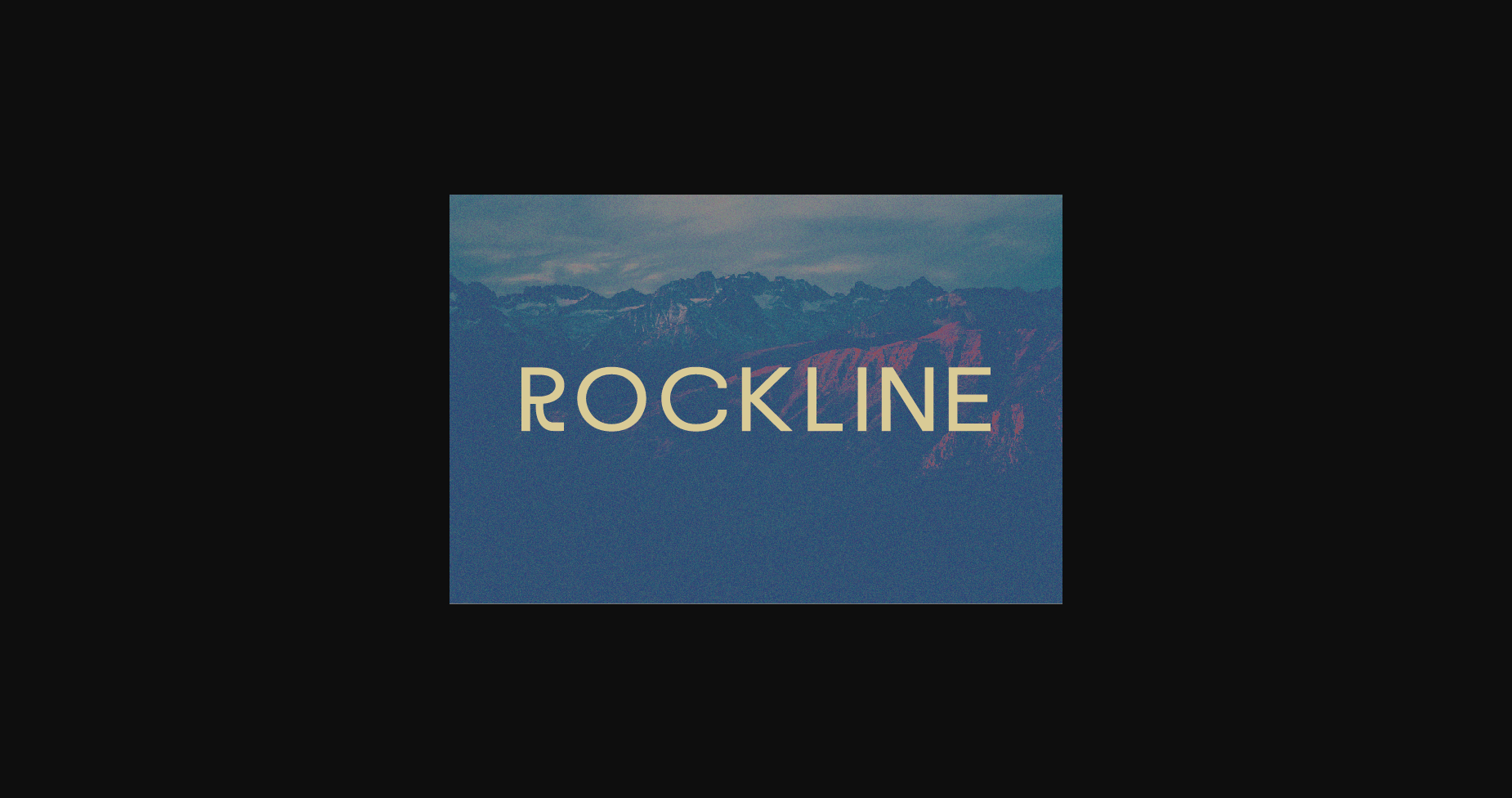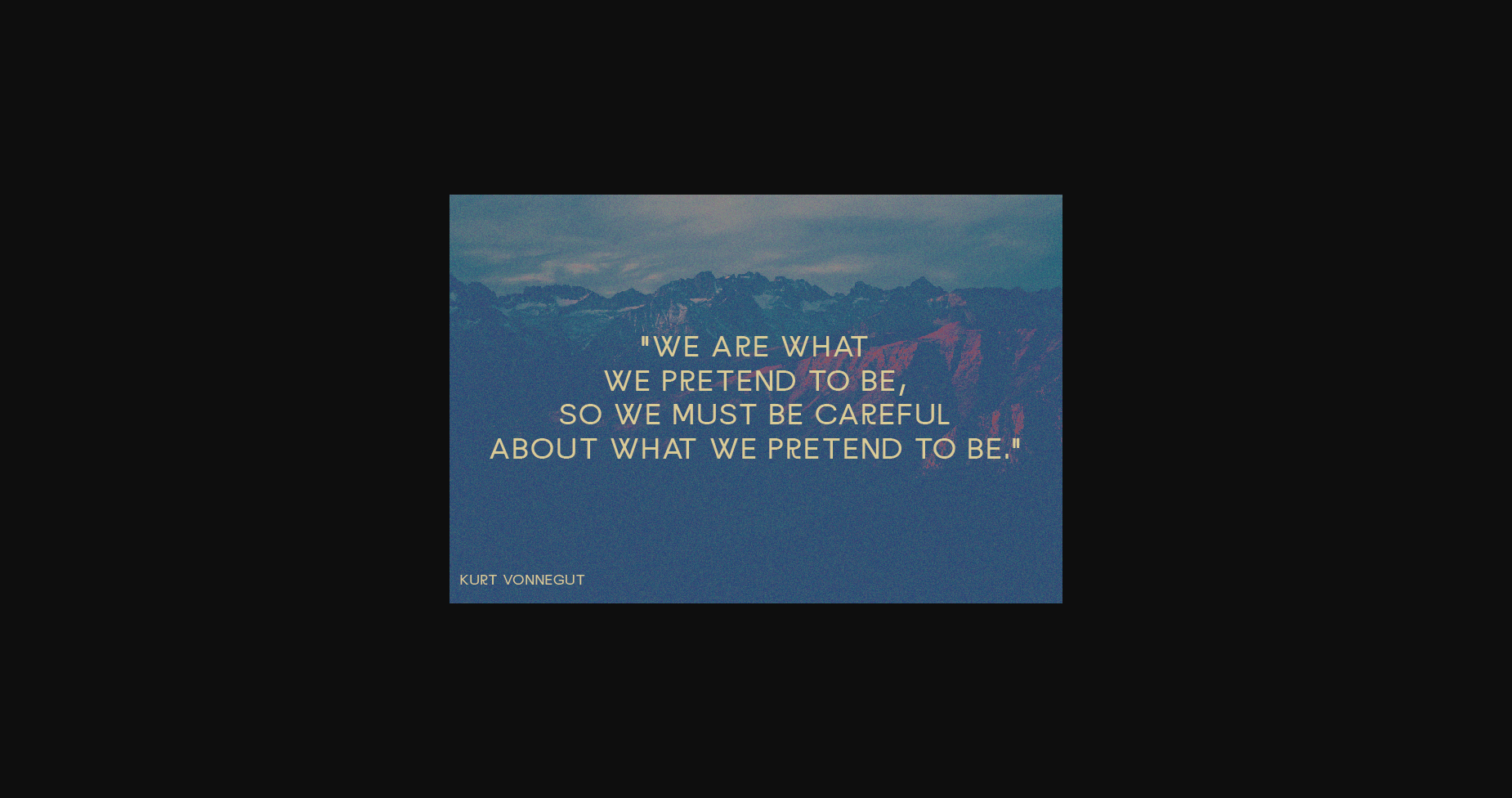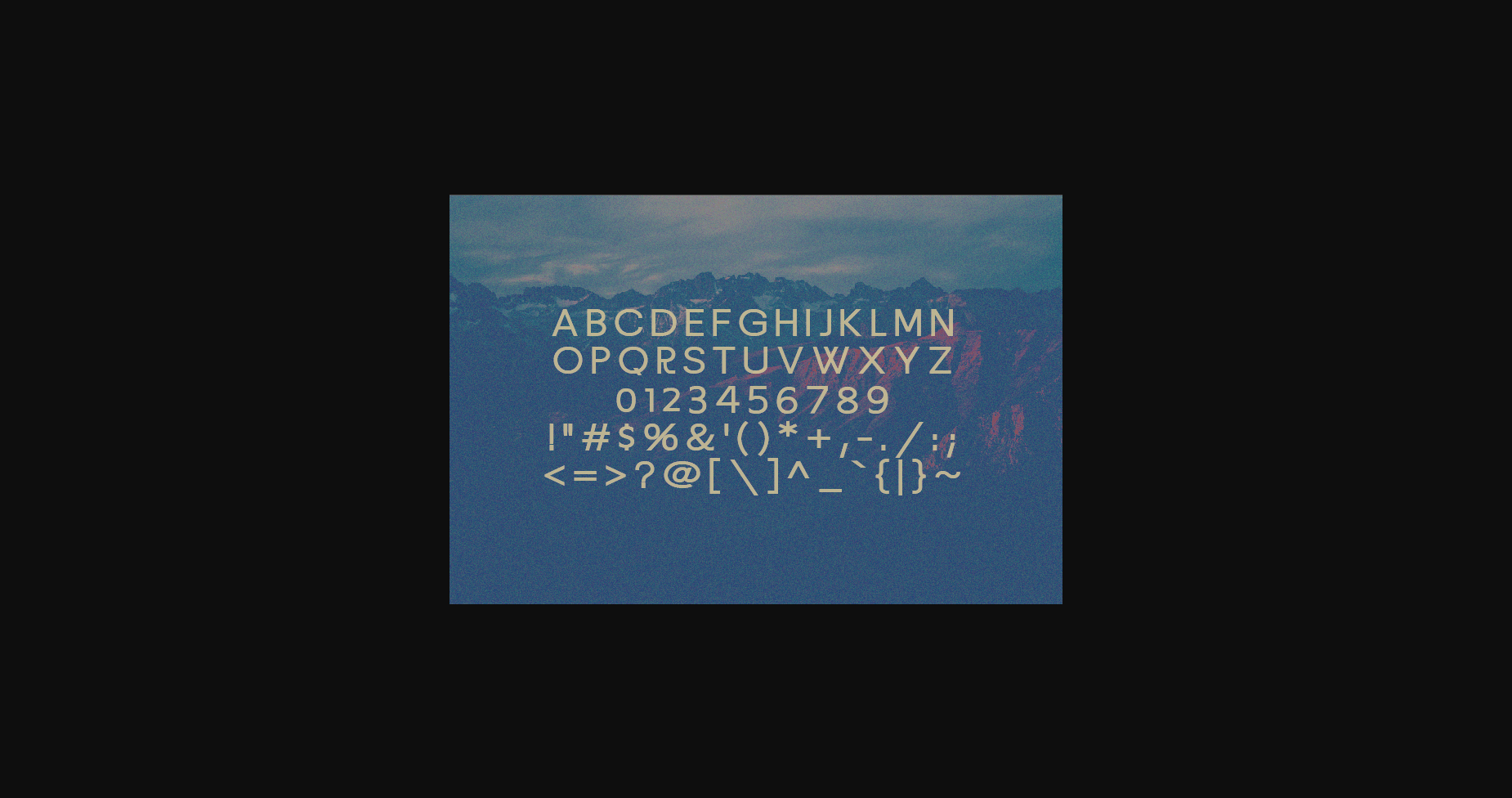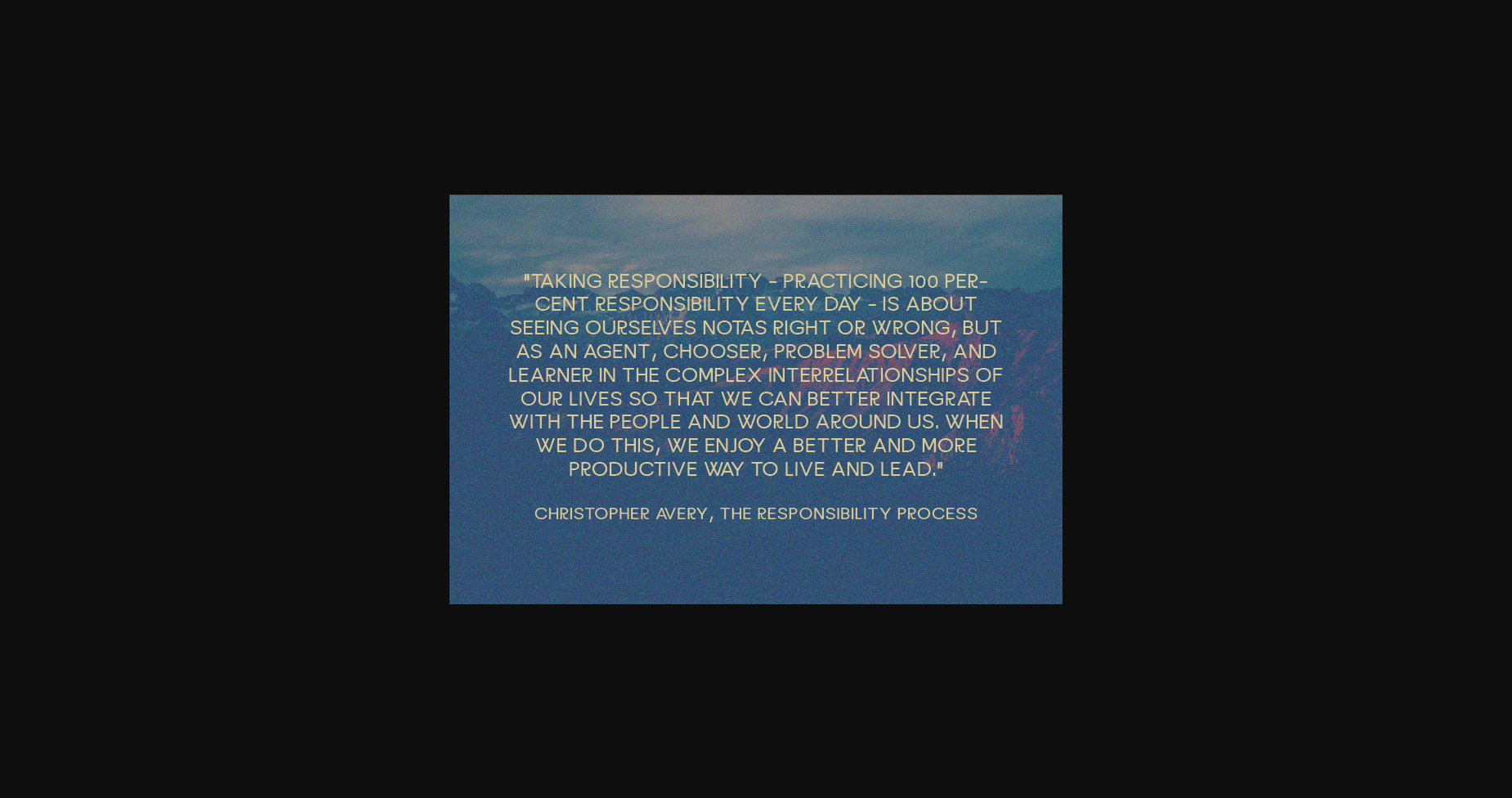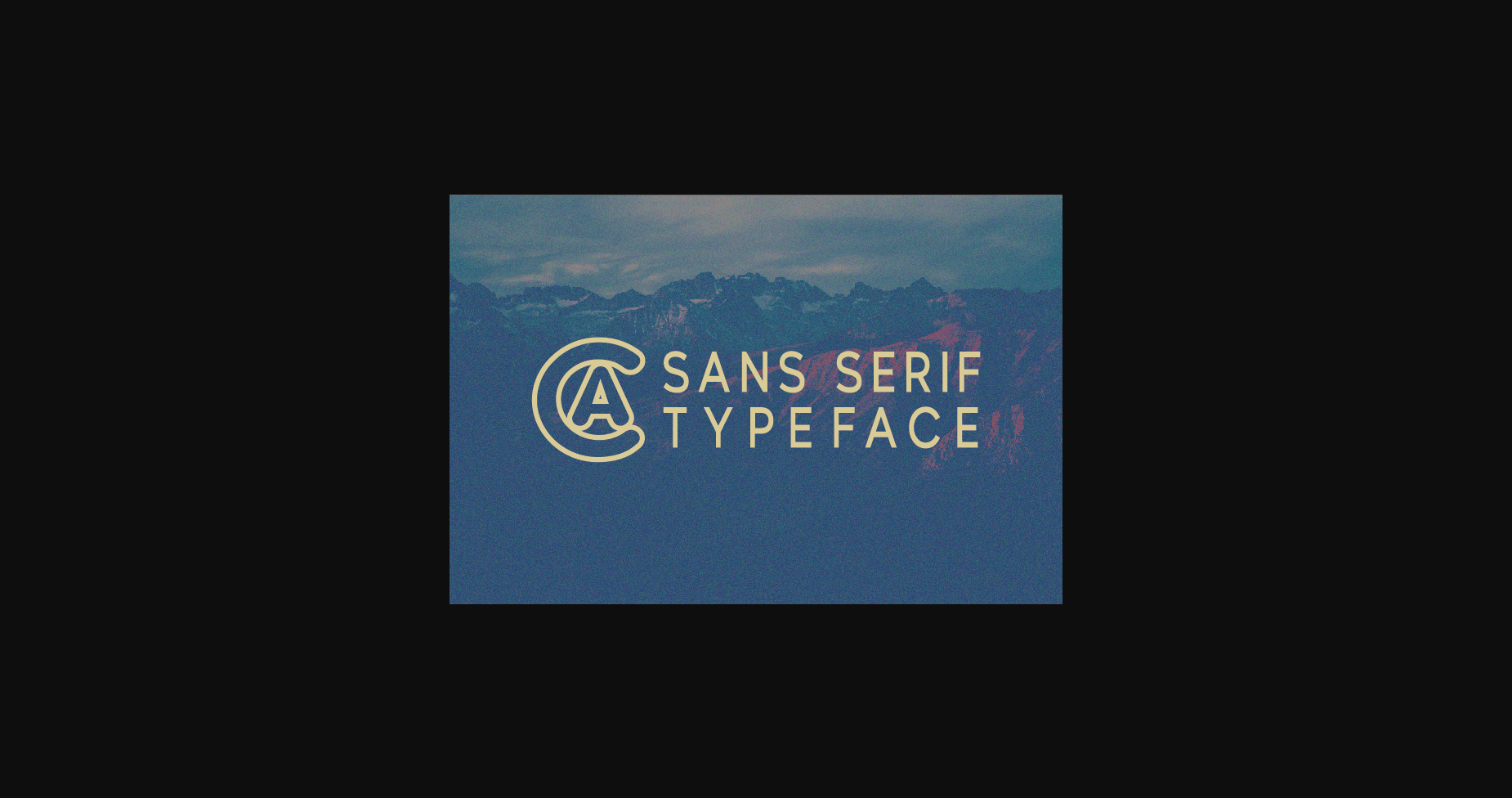
HomeSans Serif FontsRockline Font Sans Serif Fonts Rockline Font FacebookXPinterestWhatsApp 1 of 7 ... Rockline Font Poster 2... Rockline Font Poster 3... Rockline Font Poster 4... Rockline Font Poster 5... Rockline Font Poster 6... Rockline Font Poster 7... About Rockline Font Rockline is a modern, classy sans serif typeface. Extremely versatile, this typeface is perfect for logos, weddings, invitations, quotes, advertisements, print, magazines, and more! DOWNLOAD NOW People also explored Seattle Font Kasandra Script Kento Font Simpletune Font Au Revoir Font Block Heart Font Sneaky Cat Mandala Monogram Font Karl Geoff Font Retro Spring Font 381 0 TagsRockline Font Previous articleCurious FontNext articleRoseback Font LEAVE A REPLY Cancel reply Comment: Please enter your comment! Name:* Please enter your name here Email:* You have entered an incorrect email address! Please enter your email address here Website: Save my name, email, and website in this browser for the next time I comment. Personal Use Free Pompom Personal Use Free Read more about this font Beattingvile Personal Use Free Read more about this font Anggraini Personal Use Free Read more about this font Masha Song Personal Use Free Read more about this font BLOG How to Install and Use Fonts on Windows, macOS, and Web Projects How to Install and Use Fonts on Windows, macOS, and Web Projects Fonts are a crucial part of design and branding. Whether you’re designing a... Transform Your Website: Elevate Your Typography with 7 Best Web Font Generators Elegant Wedding Invitation Fonts – Handwritten & Script Fonts 5 Fonts That Will Dominate Design Trends in 2026